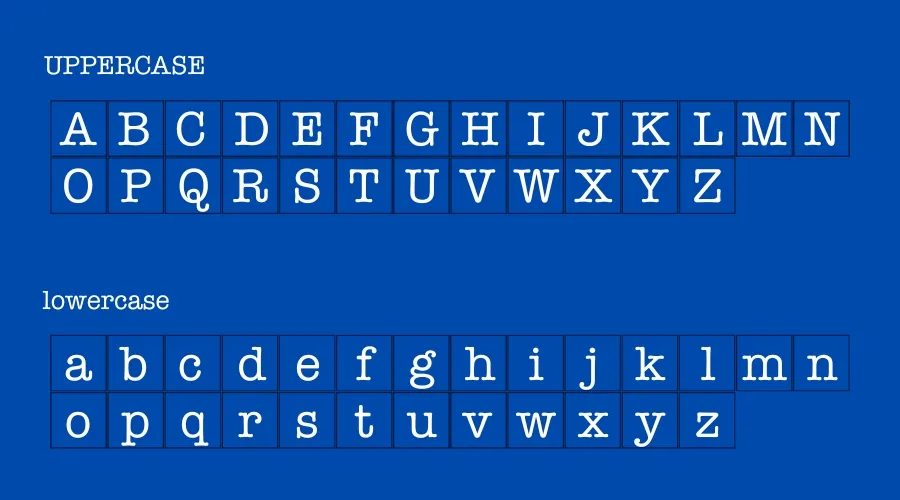
American Typewriter Font
About American Typewriter Font
Now going to share with you the American Typewriter Font. This texture was created by two well-known graphic designers named Joel Kaden and Tony Stan and is under the category of the Slab serif typeface family.
It was published by a famous International Typeface company in 1974. These typeface structures are not the same width. You can utilize its online generator tool for converting all your simple textures into stylish projects.
This font consisted of multiple weights like Regular, Medium Italic, Bold, Light Italic, Black, Italic, Bold Italic, and many more. It is best for compy and pastes futures. You can compare it with multiple other fonts. A similar font of this typeface is Helvetica texture.
This font has unique characters that will deliver an outstanding touch when used with the atrial font. This attractive project was initially developed for use in different designs and scientific serials.